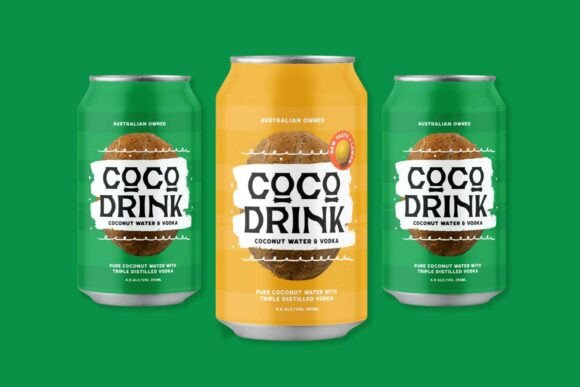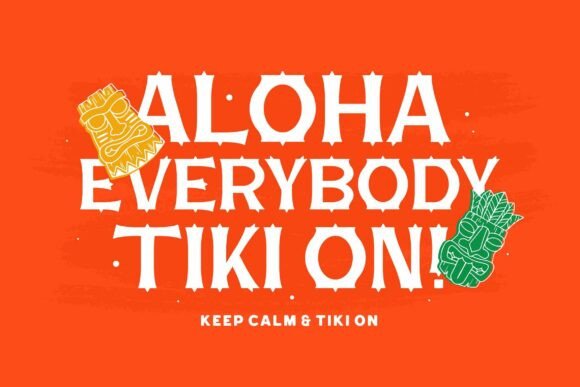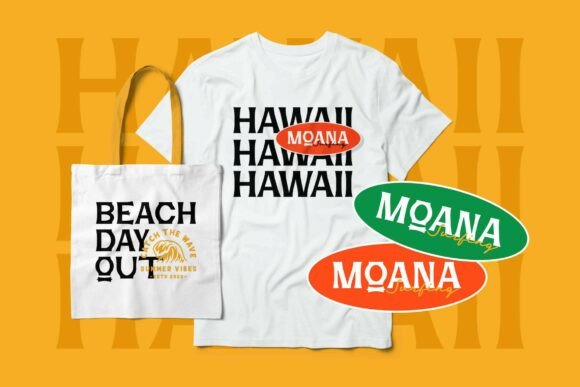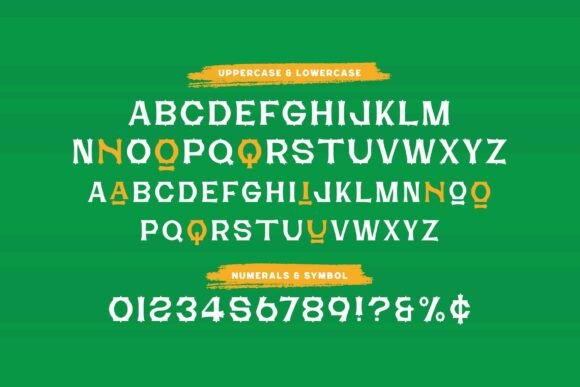
Introduction to Niki Dorie Font
Niki Dorie is a tropical display serif font with a tiki feel, combining sharp, hand-carved letterforms with geometric, slightly irregular curves.
Each letter features distinctive serifs with stylized โwoodcutโ shapes, creating a handmade feel, complemented by unique ornamental crossbars reminiscent of tiki masks and beach signs Whether youโre designing for Hawaii, a beach cafe, a tropical drink label, or summer event marketing, Niki Dorie brings the playful, adventurous, and sun-drenched feel your project needs.
Key Features of Niki Dorie Font
Why Choose Niki Dorie Font?